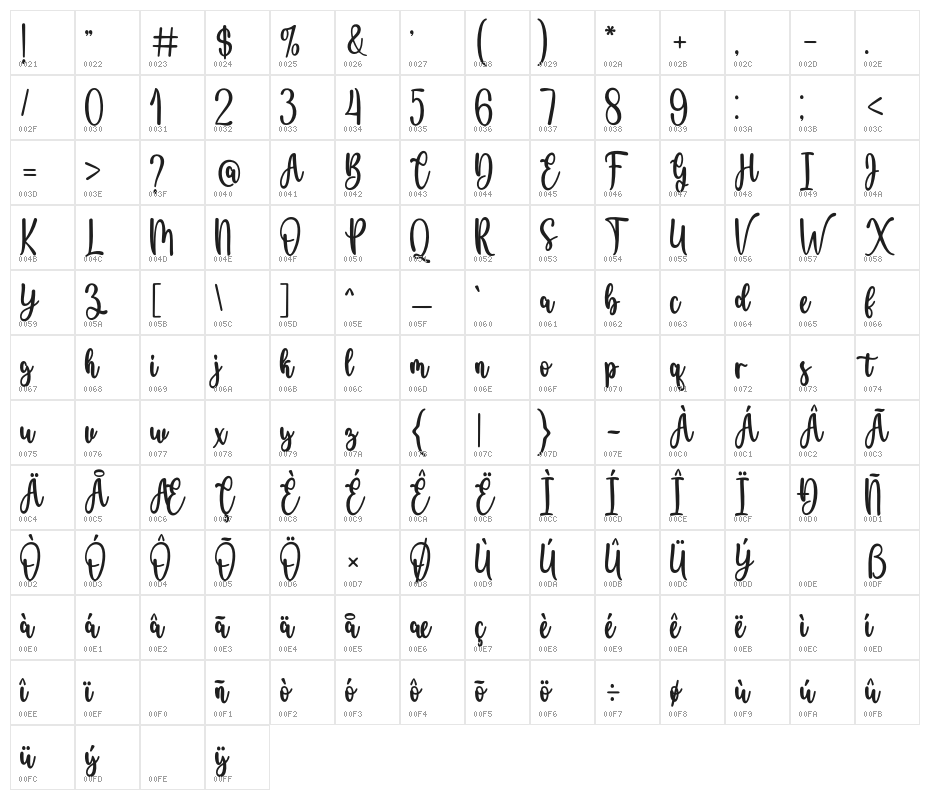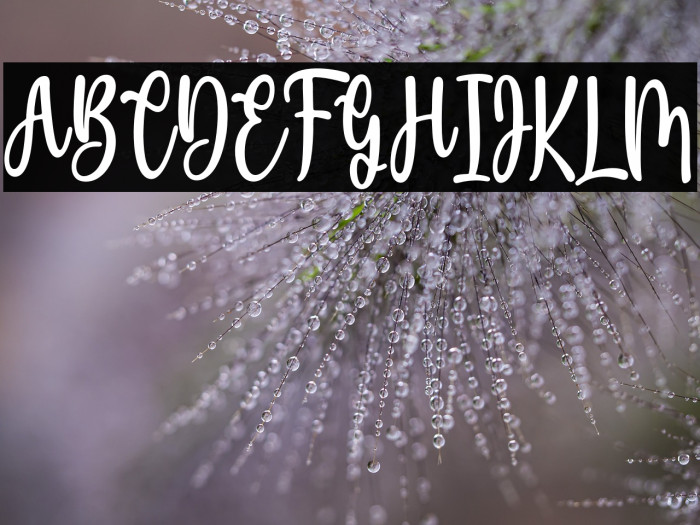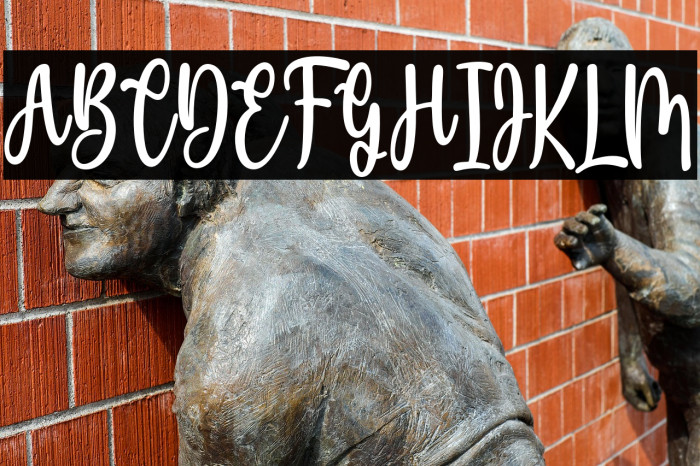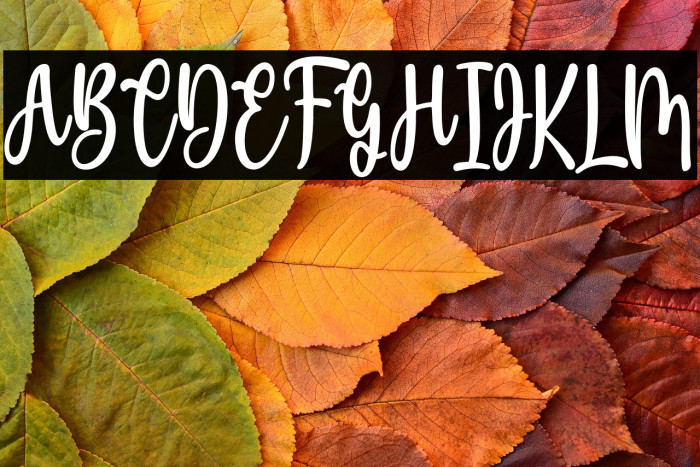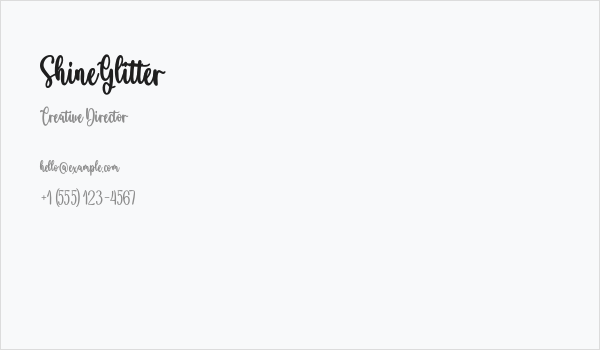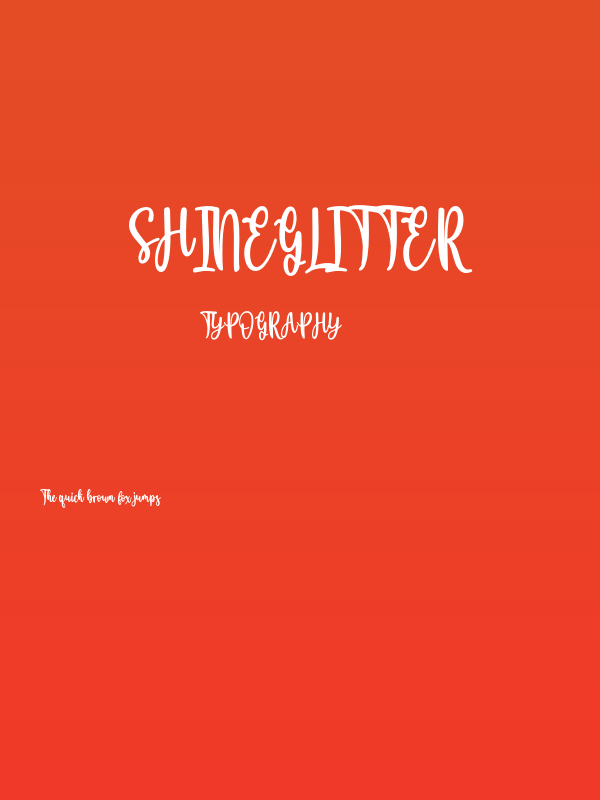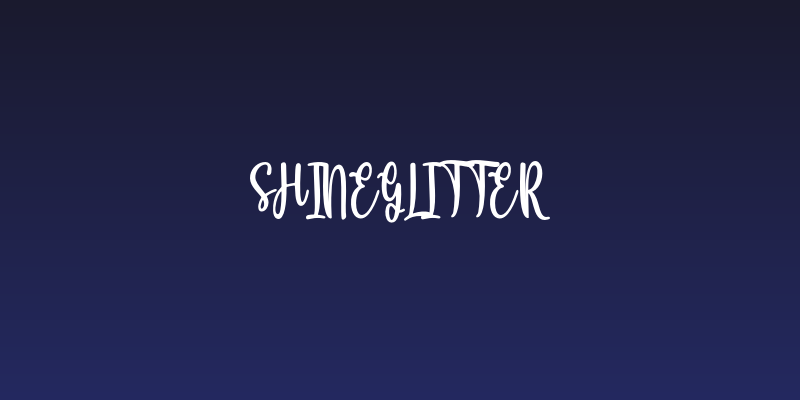
ShineGlitter Font
ShineGlitter Description
This font features a playful and whimsical handwritten style, characterized by its flowing, cursive-like letters. The uppercase letters are bold and expressive, with a consistent stroke width that adds to the font's readability. The lowercase letters maintain the same playful aesthetic, with rounded edges and smooth curves that create a sense of movement. Numbers and special characters are designed to match the overall style, ensuring a cohesive look across all text. The font's design is perfect for projects that require a personal touch, such as invitations, greeting cards, and branding materials.
| Proposed Projects | Ideal for invitations, greeting cards, branding, and any project needing a personal, whimsical touch. |